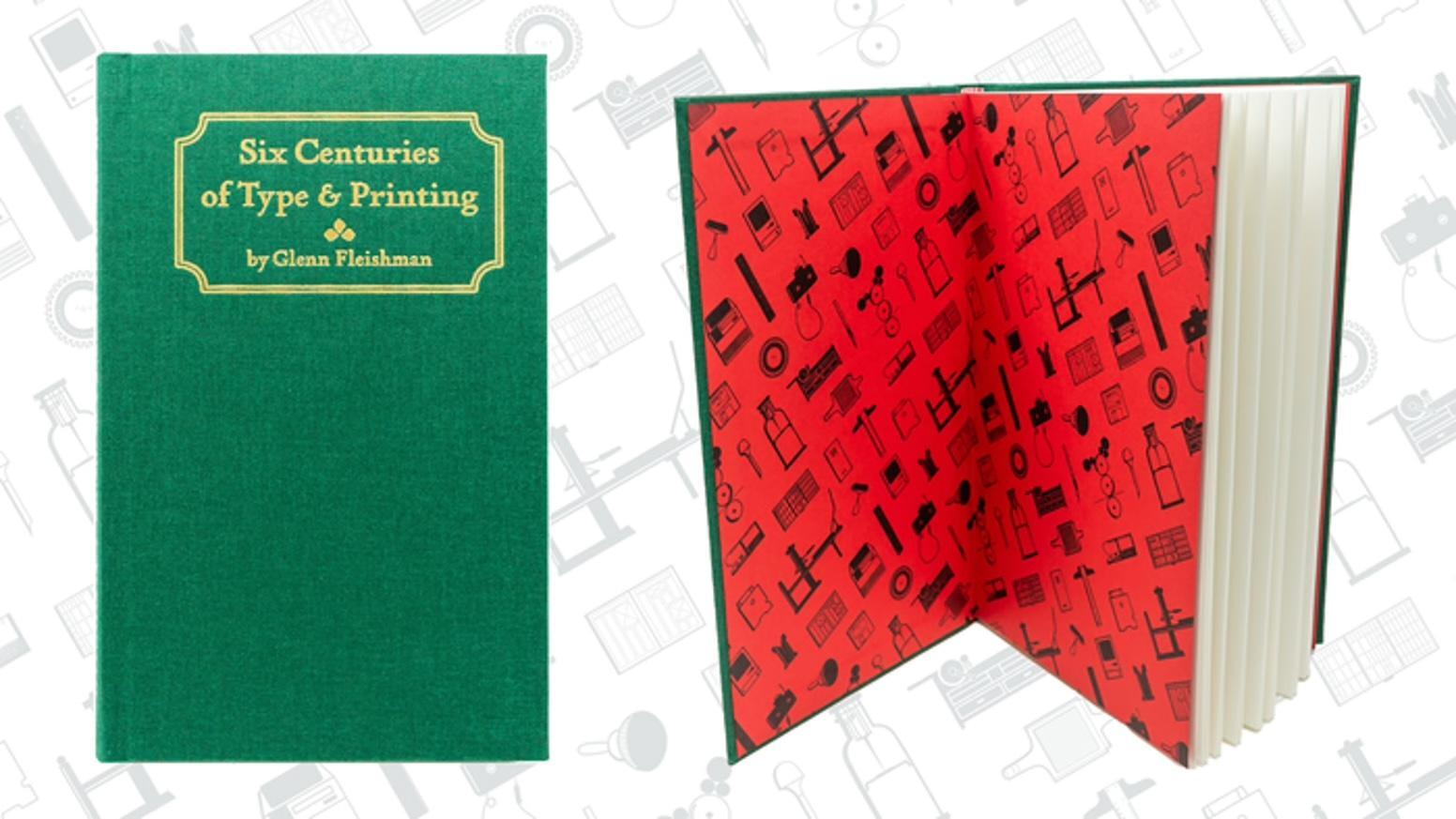
On Kickstarter: Six Centuries of Type & Printing
A new edition of the book by Glenn Fleishman.
“The book […] briskly tells the story of the evolution of type and printing, starting with early documented efforts and surviving artifacts from China and Korea, and introducing Gutenberg and his innovations. It then takes you through each generation of increasing sophistication in metal and relief printing until the abrupt 20th century shift into flat offset printing.”